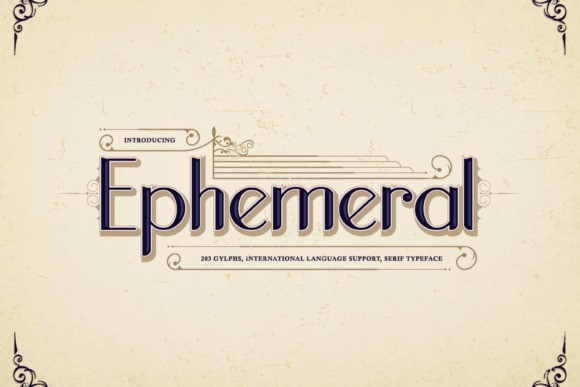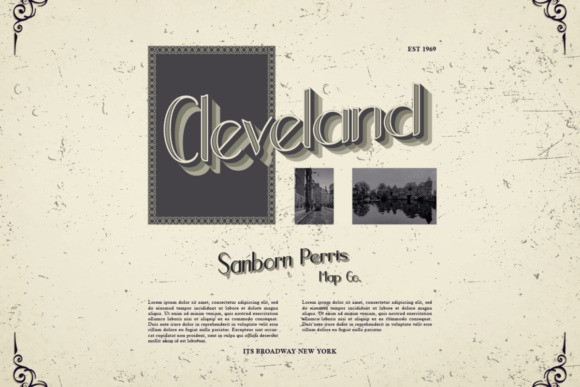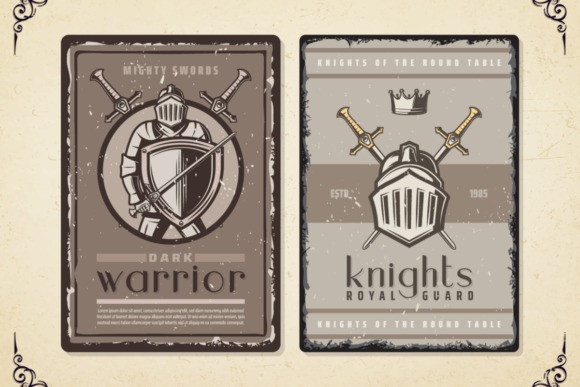
Ephemeral Font
Ephemeral font looks neat and stylish. It makes your design look simple but elegant, and extraordinary. “Ephemeral Modern Serif” is perfectly used for branding, wedding projects, product packaging, label, logos, and more design that need a simple and neat taste.